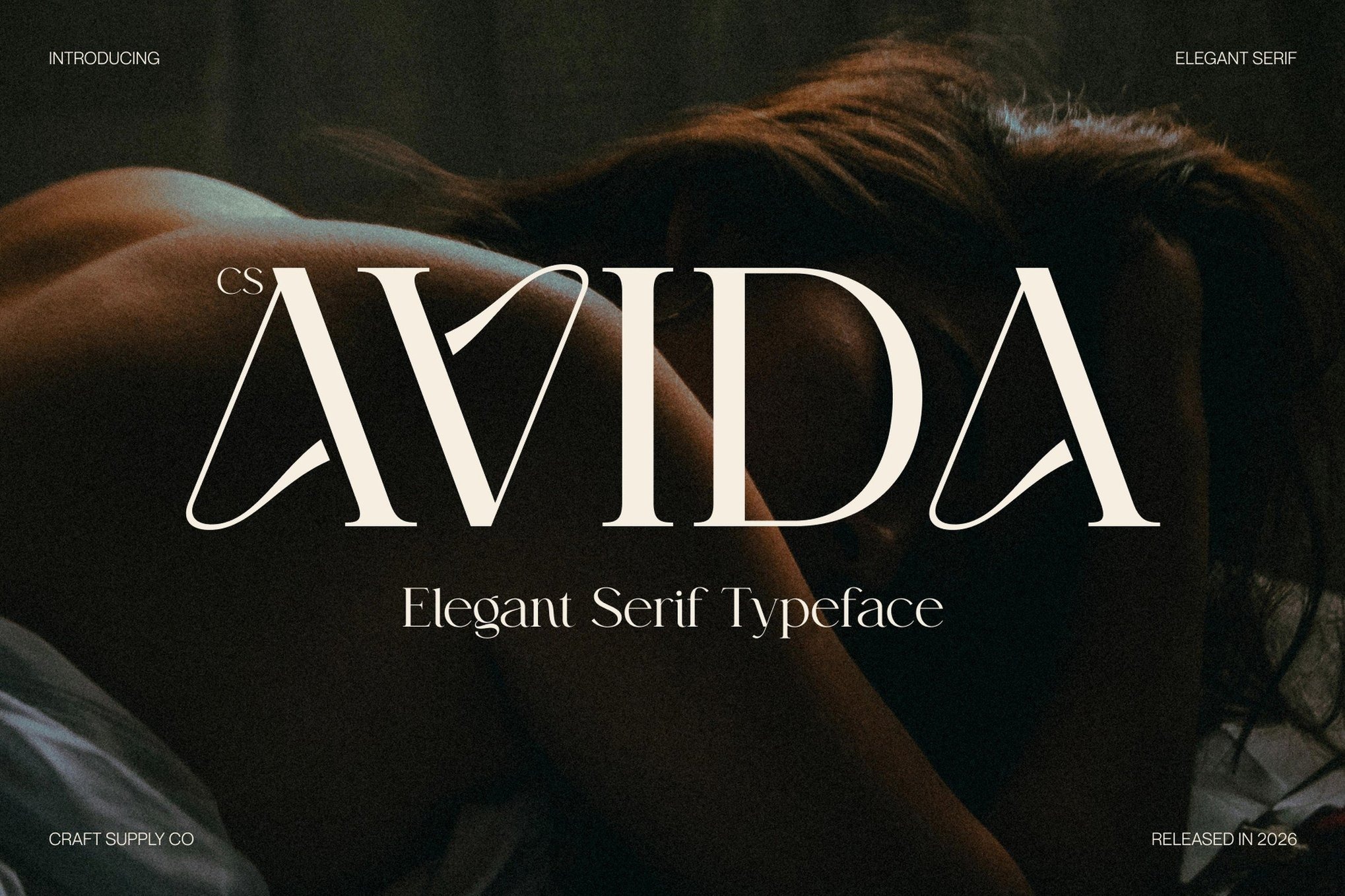
Avida Font
Avida Font is a flexible and reliable font created to fit multiple design needs, from branding and packaging to social media and editorial layouts. CS Avida – Elegant Serif with Refined Modern Luxury Elegant Serif with Timeless Sophistication This is an elegant serif font designed to embody refined style and understated luxury. Its graceful letterforms and balanced proportions create a timeless presence that feels polished and sophisticated. Built to elevate modern typography, this typeface delivers elegance with clarity and confidence.
Fresh Modern Design with Classic Roots Combining classic serif foundations with a fresh contemporary approach, this font offers clean shapes and smooth curves that feel modern and stylish. The refined detailing enhances readability while maintaining a premium aesthetic, making the font both functional and visually captivating.
Luxurious Tone with Versatile Character This font communicates luxury through subtle refinement rather than excessive ornamentation. Its versatile personality adapts effortlessly to minimalist layouts as well as more expressive compositions, providing a high-end typographic voice across a wide range of design projects.
Perfect for Logos, Titles, and Headlines Ideal for logos, titles, headlines, and creative branding projects, this font shines in editorial and promotional design. Whether used for premium branding, modern campaigns, or elegant publications, it delivers a refined and luxurious presence that enhances every visual composition.